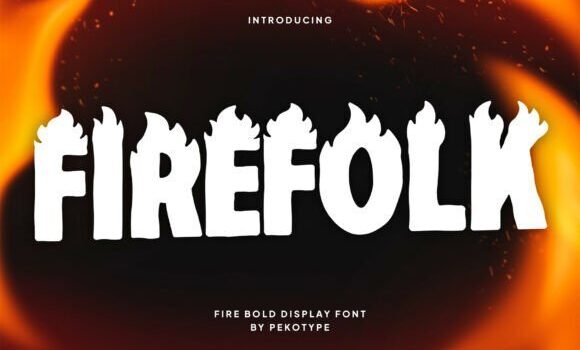
firefolk
Firefolk Font – Free Download Introduction to Firefolk Font Ignite your creativity with Firefolk, a bold and fiery display font designed to command attention. 📸 Preview Gallery 6 images 📌 Product Name Firefolk Font 👤 Author pekotype 📂 Category Explore